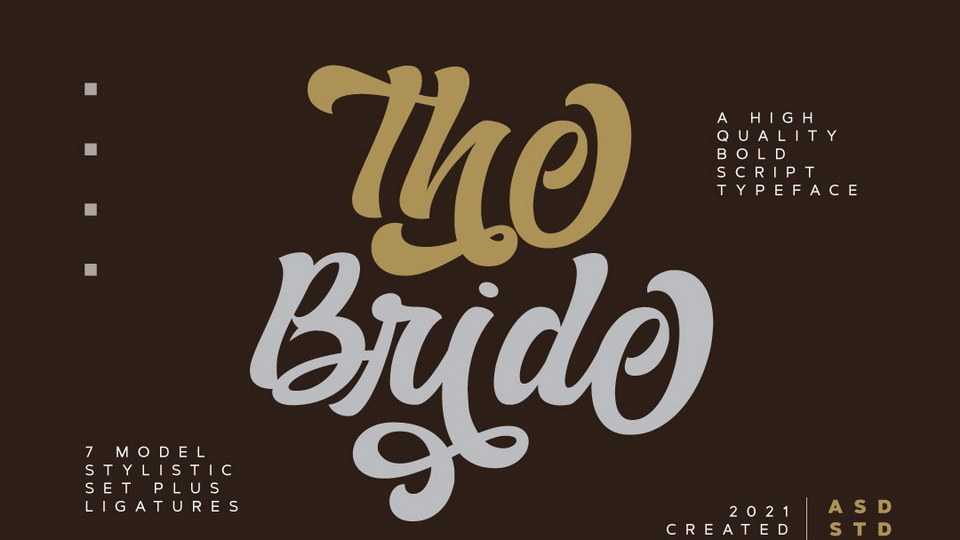
Download The Bride font, a gorgeous and bold handwritten typeface, crafted to give your headlines and logotype projects a stylish touch.
Designer: Asd Studio